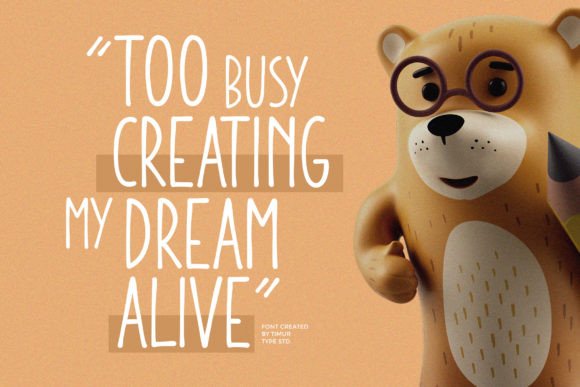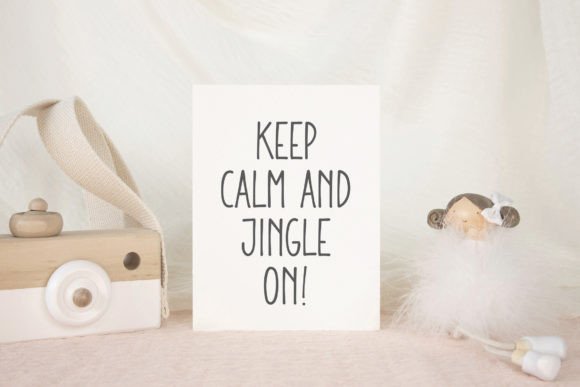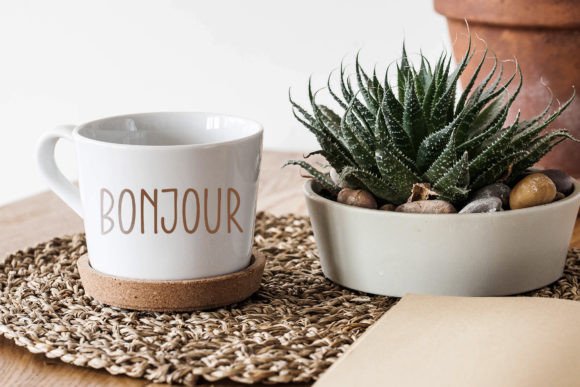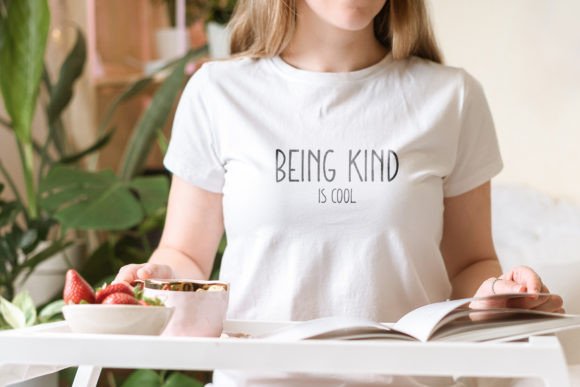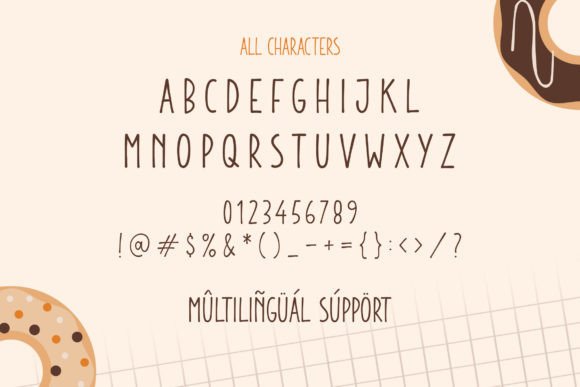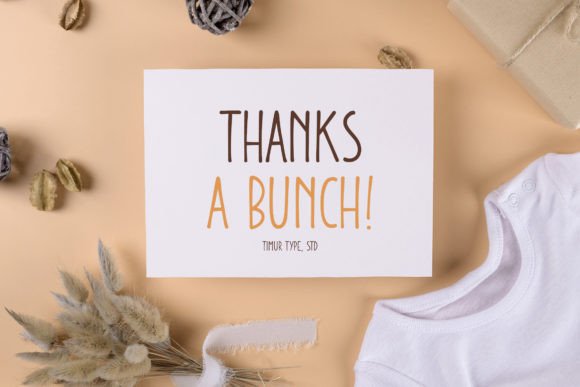
Introducing Glazed Donuts Font: The Sweetest Addition to Your Design Collection
Are you a designer, crafter, or DIY enthusiast looking for a font that can add a touch of warmth and personality to your projects? Look no further than Glazed Donuts Font, a sweet and friendly handwritten font that’s sure to delight. With its natural and unique style, Glazed Donuts is incredibly versatile and can be used in a wide range of designs, from branding and packaging to invitations and crafts.
The Charm of Glazed Donuts Font
Glazed Donuts Font is a handwritten font that’s designed to evoke the feeling of a sweet treat on a warm summer day. Its natural, effortless style makes it perfect for designs that require a personal touch. The font’s unique characteristics, such as its subtle imperfections and varying line widths, give it a charming and authentic feel that’s hard to find in digital fonts.
What Makes Glazed Donuts Font So Special?
So, what sets Glazed Donuts Font apart from other fonts out there? Here are just a few things that make it special:
- Unique and Handwritten Style: Glazed Donuts Font is a true handwritten font, crafted with love and care to ensure that every letter and character is unique and full of personality.
- Natural and Effortless: Unlike some digital fonts that can look stiff or artificial, Glazed Donuts Font has a natural, effortless style that’s perfect for designs that require a personal touch.
- Versatile and Adaptable: Whether you’re designing a logo, creating a craft project, or making invitations, Glazed Donuts Font is incredibly versatile and can be used in a wide range of designs.
- Easy to Read and Use: Despite its unique style, Glazed Donuts Font is easy to read and use, making it perfect for designs that require a clear and legible font.
How to Use Glazed Donuts Font in Your Designs
Now that you’ve fallen in love with Glazed Donuts Font, you’re probably wondering how to use it in your designs. Here are a few ideas to get you started:
- Branding and Packaging: Use Glazed Donuts Font to create custom branding and packaging for your business or product. Its unique style is sure to make your brand stand out.
- Crafts and DIY Projects: Add a personal touch to your craft projects, such as scrapbooking, card making, or sewing, with Glazed Donuts Font.
- Invitations and Stationery: Use Glazed Donuts Font to create beautiful and unique invitations, greeting cards, and stationery.
- Digital Designs: Glazed Donuts Font is also perfect for digital designs, such as social media graphics, blog posts, and website headers.
Tips and Tricks for Getting the Most Out of Glazed Donuts Font
Here are a few tips and tricks to help you get the most out of Glazed Donuts Font:
- Pair it with Other Fonts: Glazed Donuts Font pairs well with other fonts, so don’t be afraid to try pairing it with a bold or serif font for added contrast.
- Use it for Headings and Titles: Glazed Donuts Font is perfect for headings and titles, where its unique style can really shine.